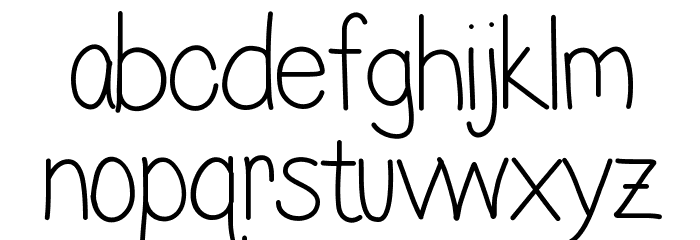
Lilian Font
This font features a playful, handwritten style with a casual and friendly appearance. The characters are slightly irregular, giving it a whimsical and informal feel. The strokes are consistent in width, creating a uniform look across all characters. The uppercase letters are tall and narrow, while the lowercase letters maintain a similar height, enhancing readability. The numbers and special characters follow the same playful style, making them blend seamlessly with the alphabet. This font is ideal for projects that require a personal touch or a fun, approachable aesthetic.
- Font: Lilian
- Proposed Projects: Great for children's books, greeting cards, informal invitations, and playful branding.
- Category: Handwritten
- Overall Style: Casual, Playful
- Use Case: Headlines, Informal text, Branding